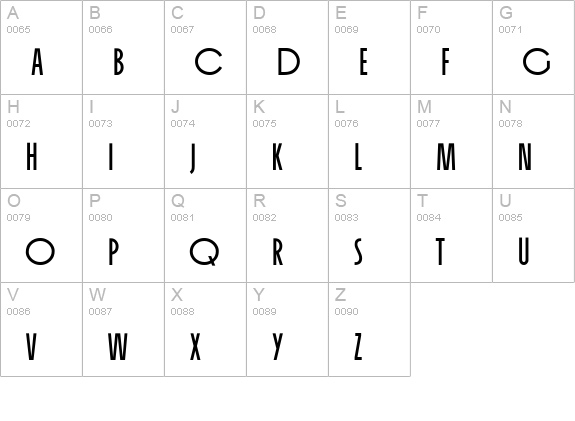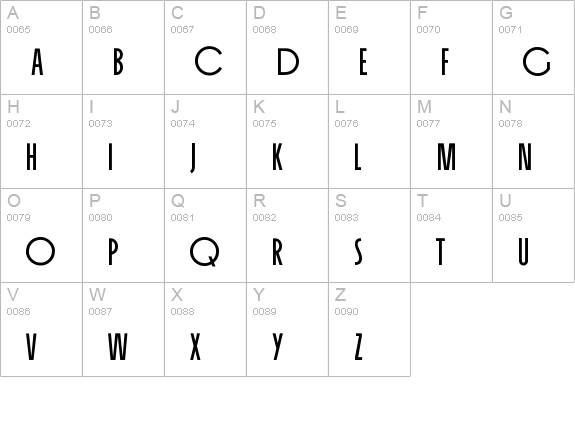
Organda MN Bold Font Details
Organda MN Bold is a strong, high-contrast variant in the Organda typeface family \xE2\x80\x94 well suited to headlines, attention-grabbing titles, and strong calls-to-action.
Organda MN Bold is a striking and modern typeface that exudes confidence and sophistication. With its bold weight and sleek lines, this font is perfect for making a statement in headlines, titles, and other prominent text. The strong presence of Organda MN Bold commands attention and adds a touch of elegance to any design project. What makes Organda MN Bold even more appealing is that it is available for free download at FontsMarket.com. This means that you can easily access this stylish font without any cost, making it a valuable addition to your font library. Whether you are working on branding materials, posters, websites, or any other creative project, Organda MN Bold is a versatile choice that will help your text stand out and leave a lasting impression. Unlock the potential of your designs with Organda MN Bold today, and elevate your typography to new heights.